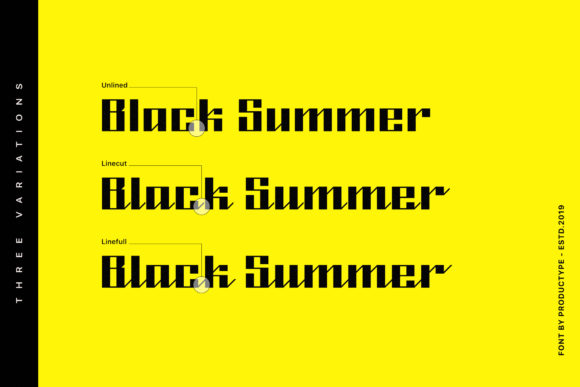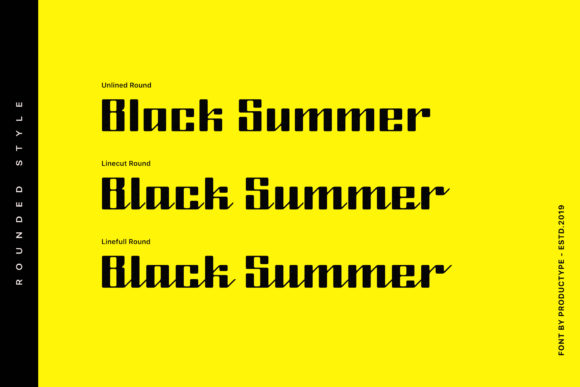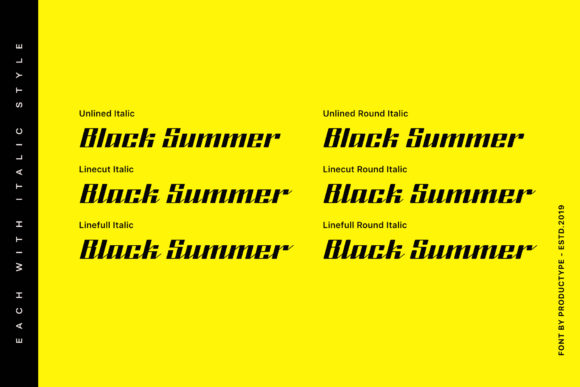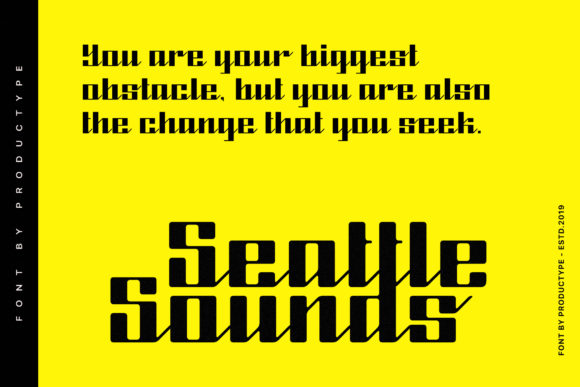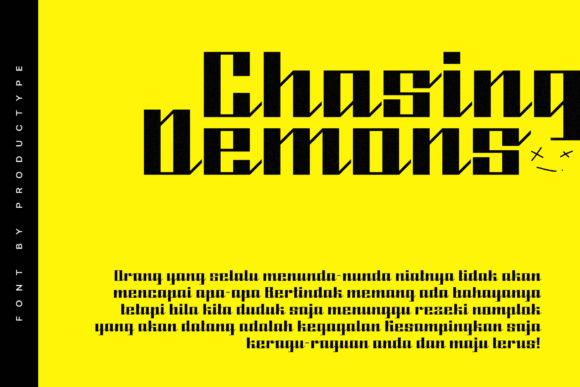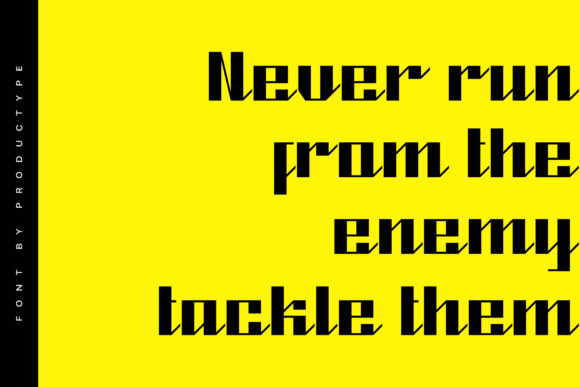
Introducing Black Summer Family Font: A Bold and Stunning Blackletter Font
Are you looking for a font that can add a bold and striking feel to your design projects? Look no further than the Black Summer Family Font, a fun and incredibly stunning blackletter font family with a contemporary twist. In this article, we’ll explore the features and benefits of this amazing font, and why it’s a must-have for designers and crafters.
What is Black Summer Family Font?
Black Summer Family Font is a blackletter font family that combines traditional Gothic lettering with modern design elements. The result is a unique and eye-catching font that’s perfect for adding a bold touch to any design project. With its sleek lines, sharp edges, and elegant curves, this font is sure to make a statement.
Key Features of Black Summer Family Font
- Contemporary Twist: Black Summer Family Font takes traditional blackletter fonts to the next level with its modern design elements. The font features clean lines, bold shapes, and a fresh aesthetic that’s perfect for contemporary designs.
- Bold and Striking: This font is designed to make a statement. Its bold lines and sharp edges give it a striking appearance that’s sure to grab attention.
- Versatile: Black Summer Family Font is a versatile font that can be used for a wide range of design projects, from logos and branding to posters, flyers, and more.
- Easy to Read: Despite its bold design, Black Summer Family Font is easy to read, making it perfect for use in body text as well as headlines.
Benefits of Using Black Summer Family Font
So why should you choose Black Summer Family Font for your design projects? Here are just a few benefits of using this amazing font:
- Adds a Professional Touch: With its sleek design and bold appearance, Black Summer Family Font can add a professional touch to any design project.
- Stand Out from the Crowd: This font is sure to make your designs stand out from the crowd. Its unique and eye-catching design ensures that your message will be noticed.
- Saves Time: With Black Summer Family Font, you can create stunning designs in no time. Its easy-to-read design and versatile style make it perfect for a wide range of projects.
How to Use Black Summer Family Font
Using Black Summer Family Font is easy. Here are a few tips for incorporating this font into your design projects:
- Pair with Other Fonts: Black Summer Family Font pairs well with other fonts, making it easy to create stunning contrast and visual interest.
- Use for Headlines and Body Text: This font is versatile enough to be used for both headlines and body text, making it perfect for a wide range of design projects.
- Experiment with Colors: Black Summer Family Font looks great in a variety of colors. Experiment with different colors and combinations to find the perfect look for your design.
Who is Black Summer Family Font for?
Black Summer Family Font is perfect for designers, crafters, and anyone looking to add a bold and striking touch to their design projects. This font is ideal for:
- Graphic Designers: Black Summer Family Font is a must-have for graphic designers looking to create stunning logos, branding, and marketing materials.
- Crafters: Crafters and DIY enthusiasts will love using this font for their crafting projects, from signs and posters to cards and invitations.
- Small Business Owners: Small business owners can use Black Summer Family Font to create professional-looking marketing materials, from brochures to social media graphics.
| Font Name | Black Summer Family Font |
| Author | Productype |
In conclusion, Black Summer Family Font is a fun and incredibly stunning blackletter font family with a contemporary twist. Its bold and striking design makes it perfect for adding a professional touch to any design project. With its versatility, ease of use, and range of benefits, this font is a must-have for designers, crafters, and small business owners. So why wait? Download Black Summer Family Font today and start creating stunning designs that stand out from the crowd!